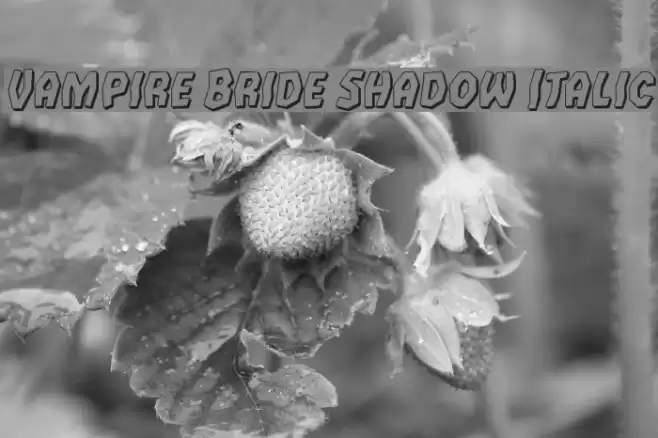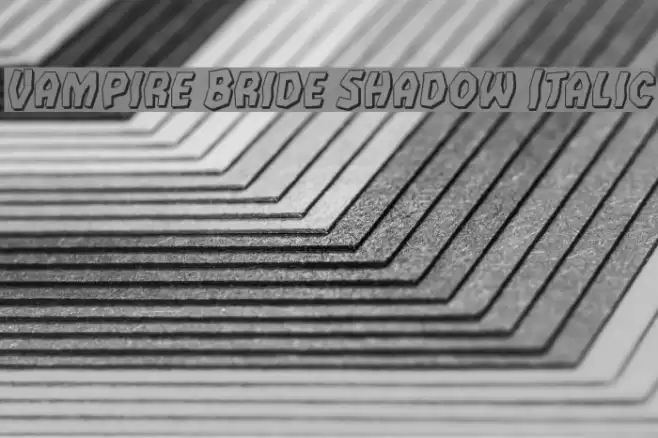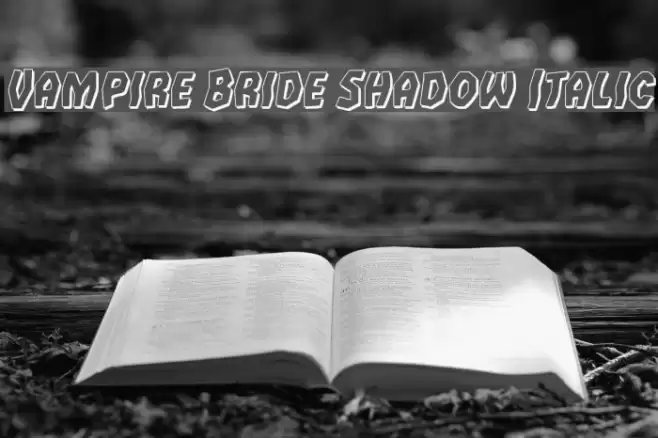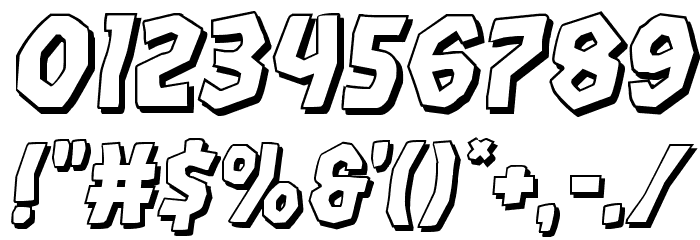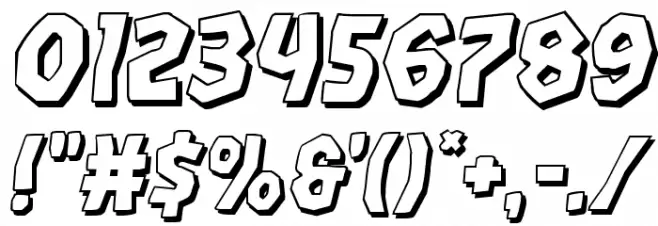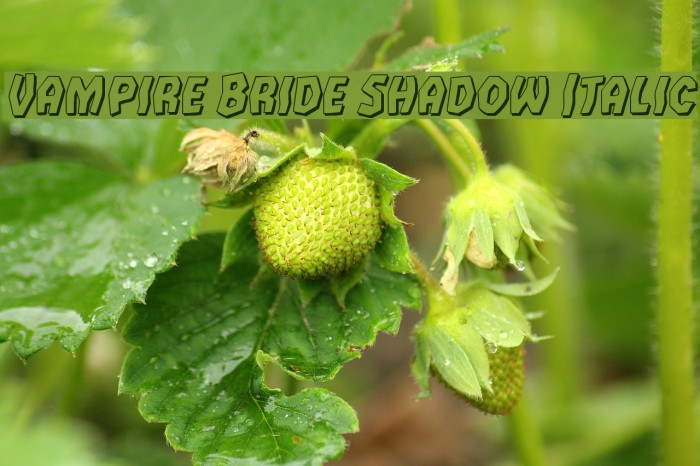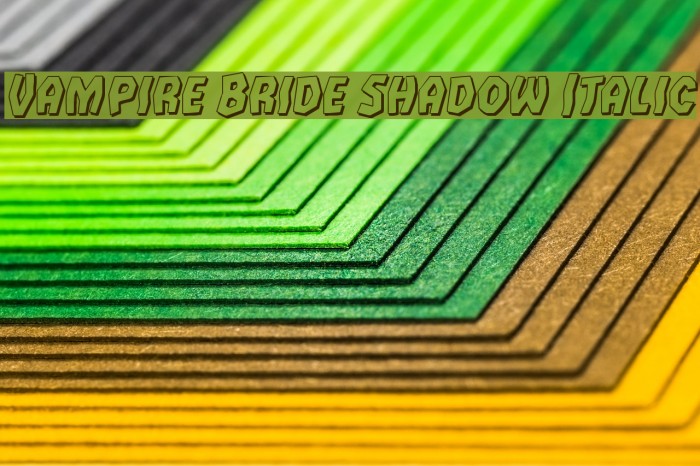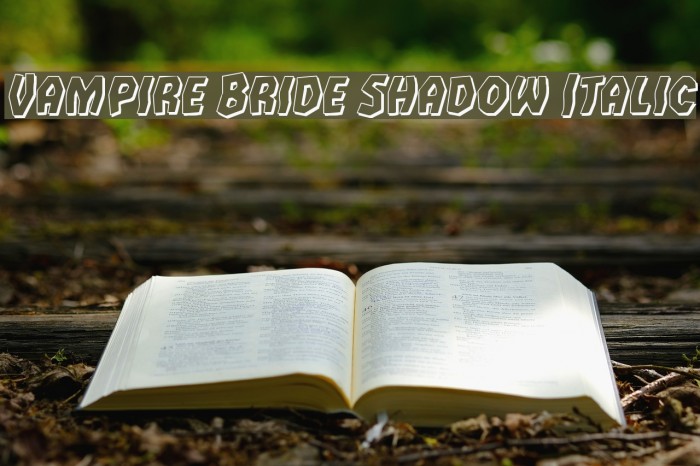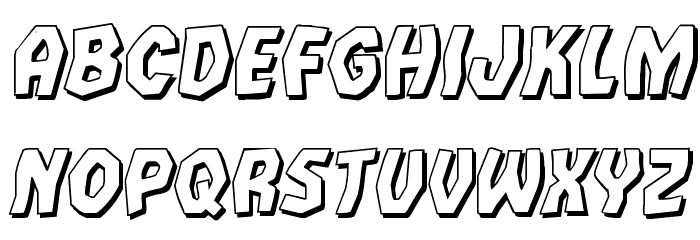
Vampire Bride Shadow Italic Font
Vampire Bride Shadow Italic Description
This font features a bold, shadowed design with a playful and dynamic appearance. The letters are outlined with a thick black shadow, giving them a three-dimensional effect. The style is consistent across uppercase, lowercase, numbers, and special characters, maintaining a cohesive look. The font's boldness and shadowing make it stand out, suitable for attention-grabbing designs. Its playful nature is ideal for creative projects that require a fun and engaging typeface.
A bold, shadowed font with a playful, three-dimensional look from Horror fonts.
- Proposed Projects: Ideal for comic books, children's book covers, posters, and playful branding.